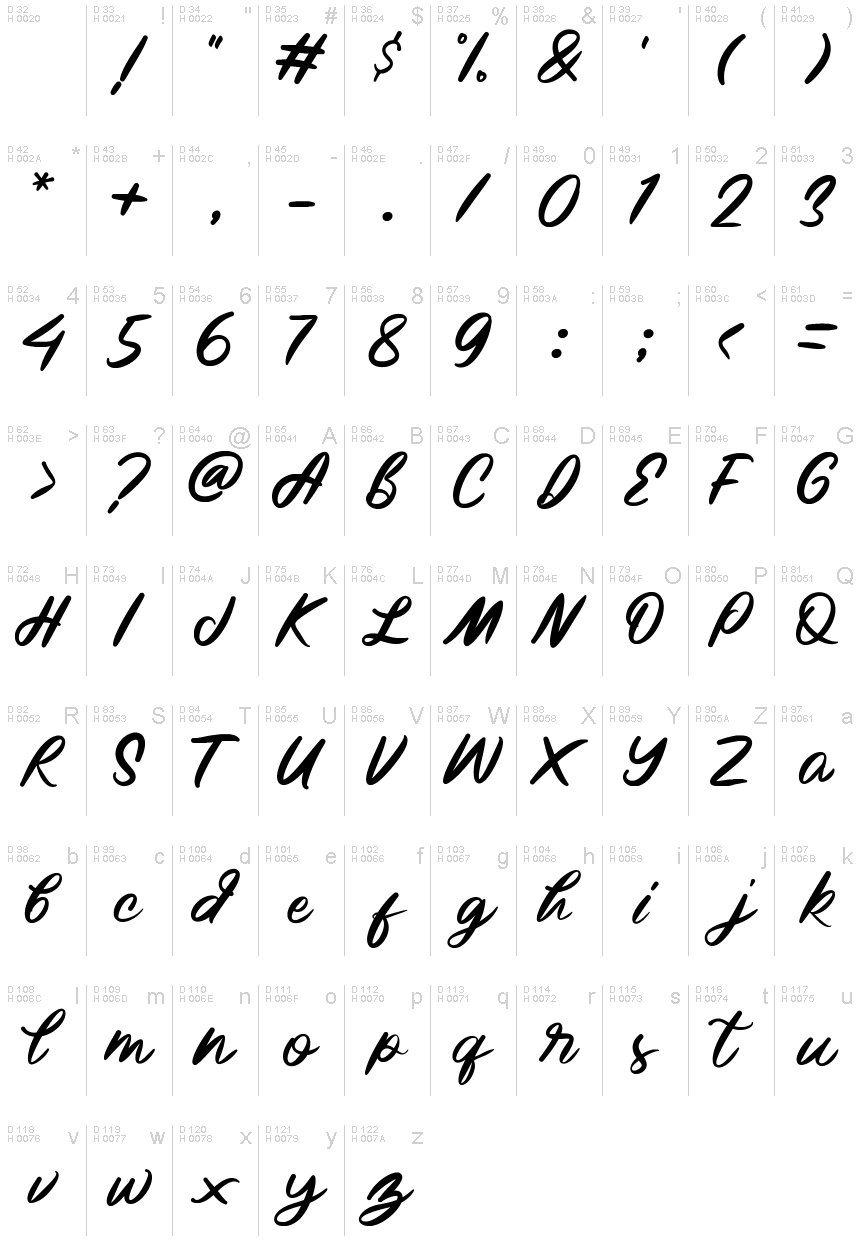
Thanks Summer, designed by Letterara, carries the casual elegance of handwritten script with its fluid and expressive letterforms. Its style exudes a personal touch that conjures the warmth of a summer day, making it ideal for invitations, greeting cards, and branding that seek to establish an intimate connection.
The font’s sweeping curves and varied stroke width add a dynamic rhythm to text, while its relaxed structure ensures readability. Thanks Summer lends itself to designs that require a blend of sophistication and a laid-back vibe. Whether it's for logo design, merchandise quotes, or editorial headings, this font's charm is sure to infuse your project with an artisanal flair.